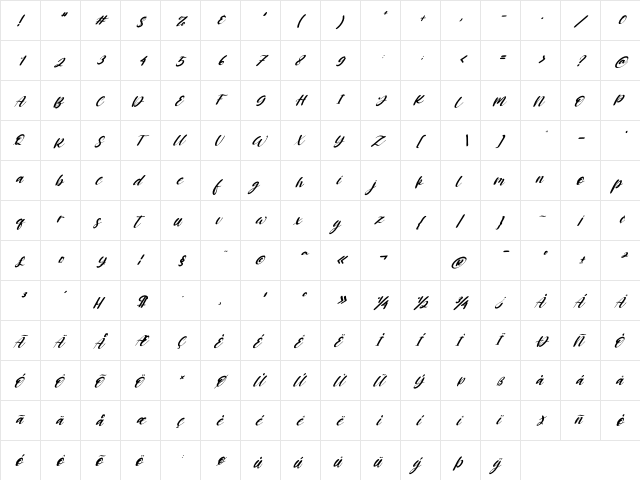
Boostone Italic Regular
Design Context for Boostone Italic Typeface
Boostone Italic is a composed and adaptable typeface that performs quietly and consistently across a wide range of design contexts. The slanted form adds forward momentum and visual energy.
Pro Tip: Use Boostone Italic for emphasis, pull quotes, and subheadings where its slanted energy can add rhythm to the layout.